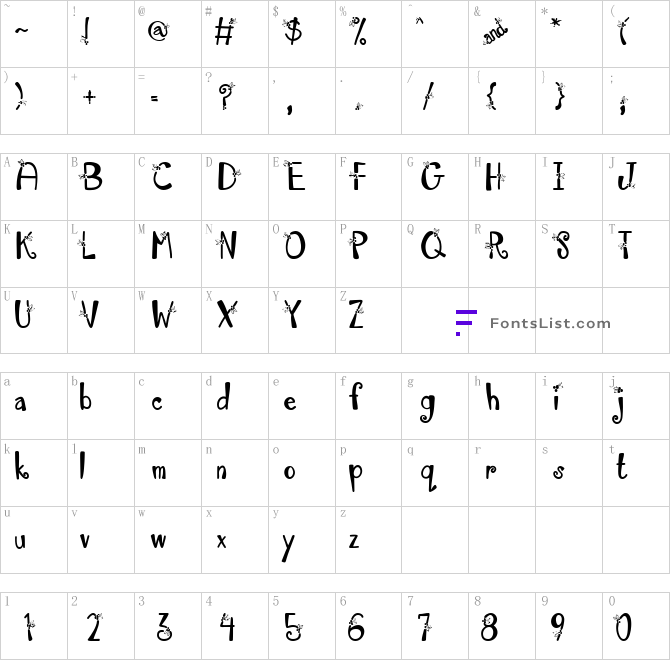
- Font Name:Austie Bost Happy Holly
Austie-Bost-Happy-Holly.ttf is a very beautiful artistic font, Austie-Bost-Happy-Holly.ttf is widely used in the design and printing of various books and pictures,Austie-Bost-Happy-Holly.ttf has a strong visual impact,Austie-Bost-Happy-Holly.ttf is a commonly used font in newspapers, magazines and books, and is used in posters, e-commerce Poster design, store design, logo design, font design and other fields.Austie-Bost-Happy-Holly.